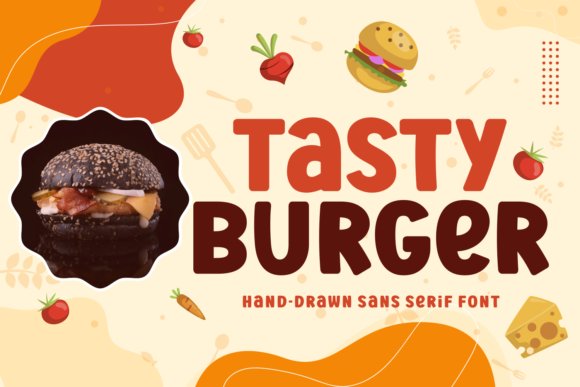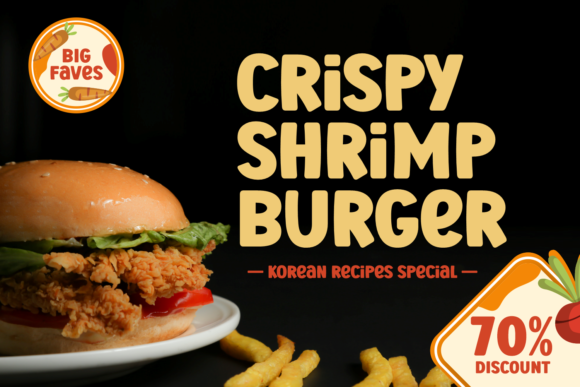
Tasty Burger Font
Tasty Burger is a bold and easy to read display font. Whether you’re using it for crafts, digital design, presentations, or making greeting cards, this font has the potential to become your favorite go-to font, no matter the occasion!